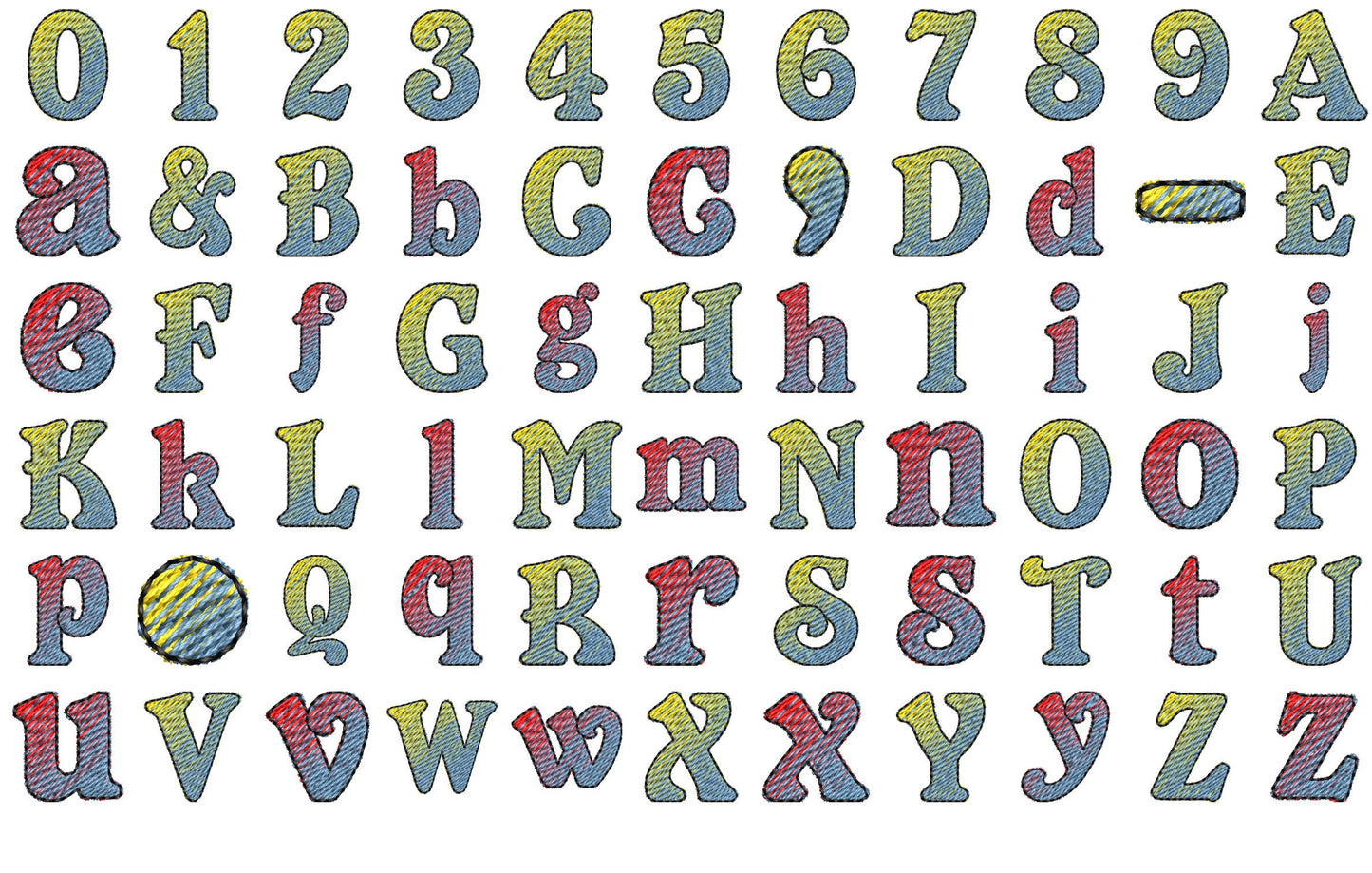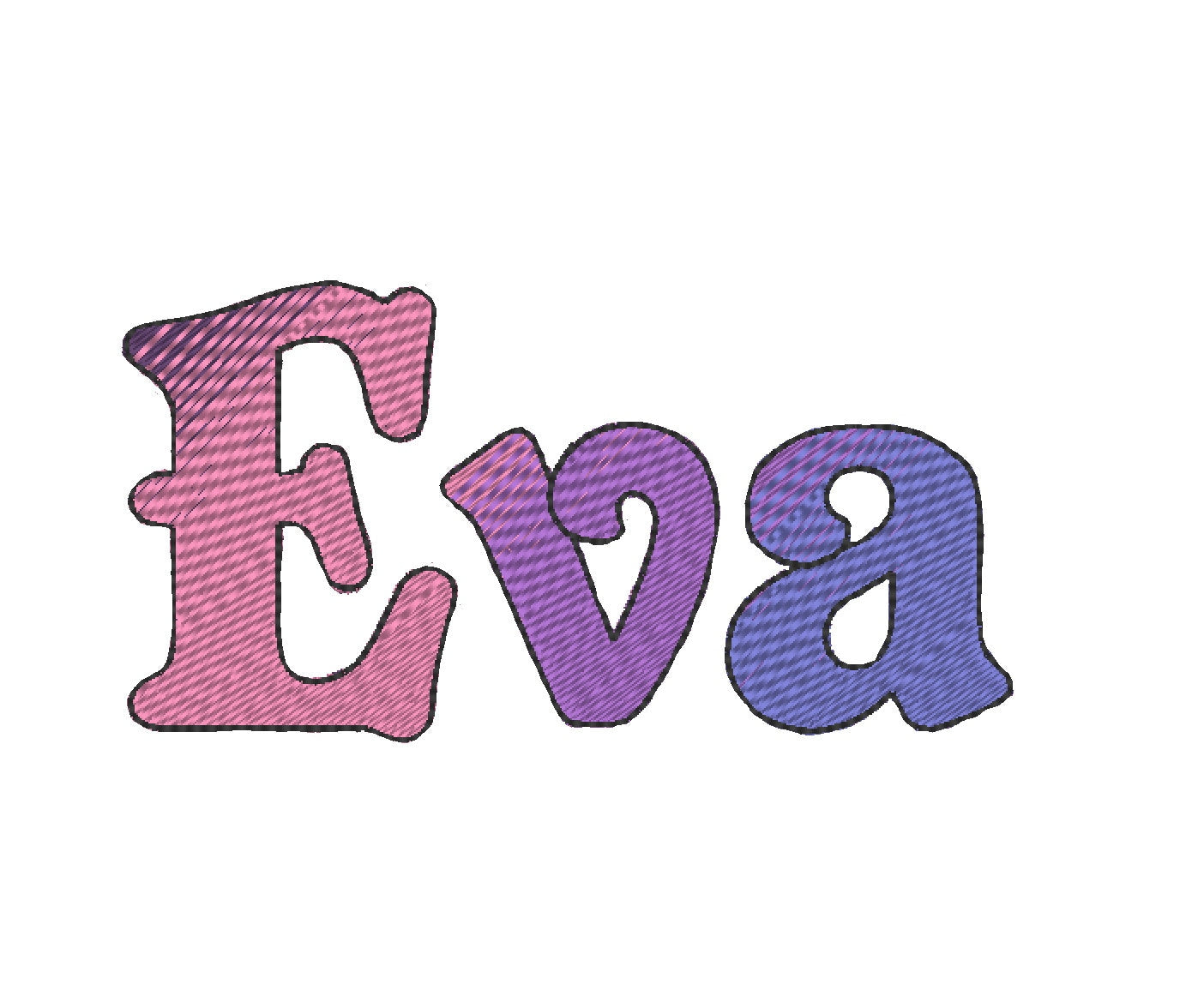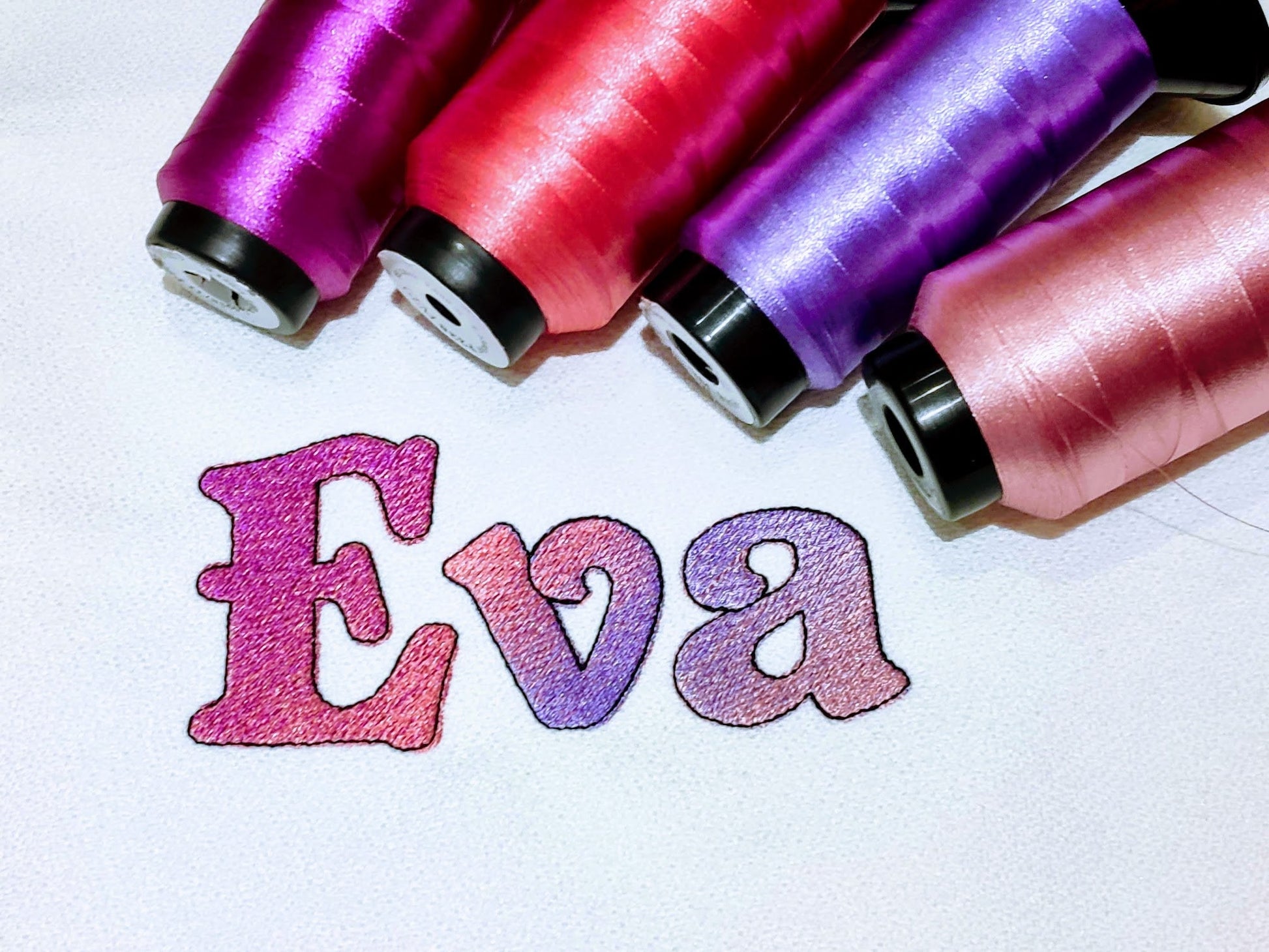
Eva Iridescent 2 Color Block Font
Uppercase and lowercase letters, numbers 0 to 9 and punctuation in seven sizes: 1.2, 1.6, 2, 2.4, 2.8, 3.1 and 3.9 inches. Each letter shifts from one color to the other, so the rainbow look comes from the stitching itself.
- Iridescent 2-color block font
- Uppercase, lowercase, numbers 0 to 9, punctuation
- 7 sizes, 1.2 to 3.9 in